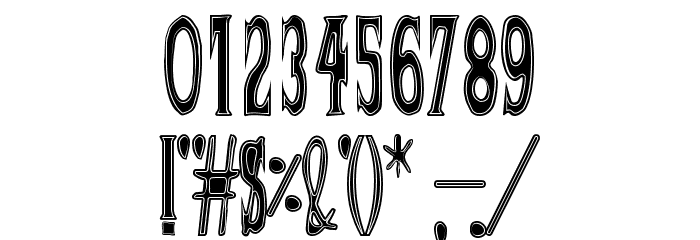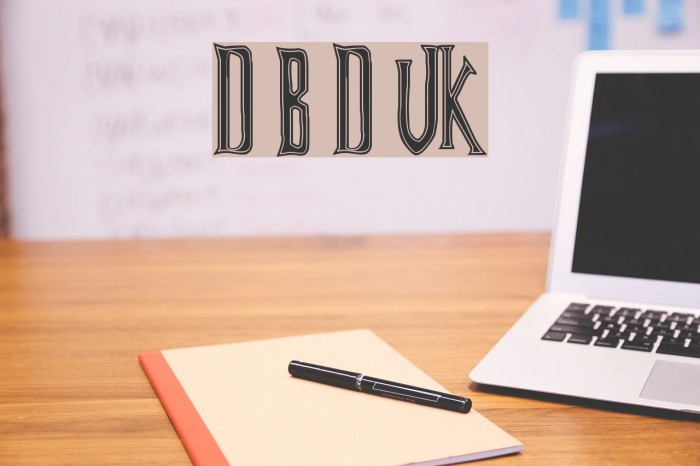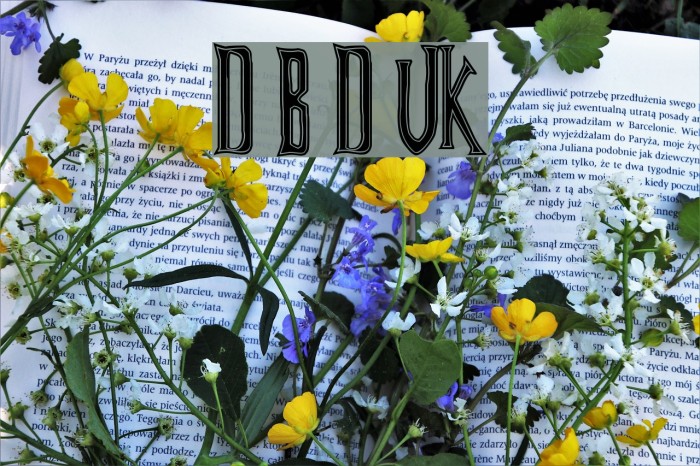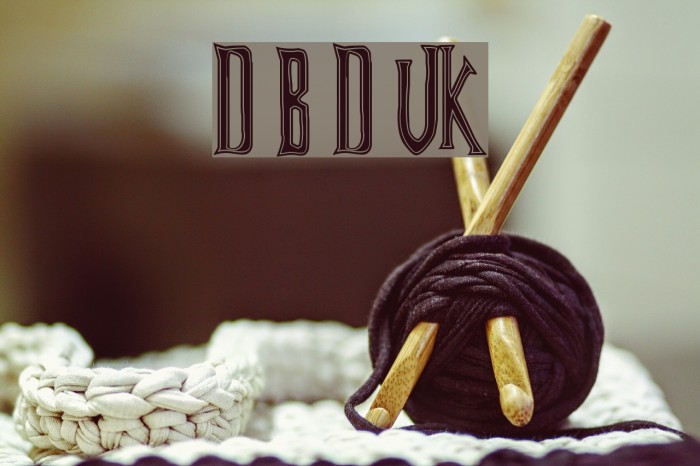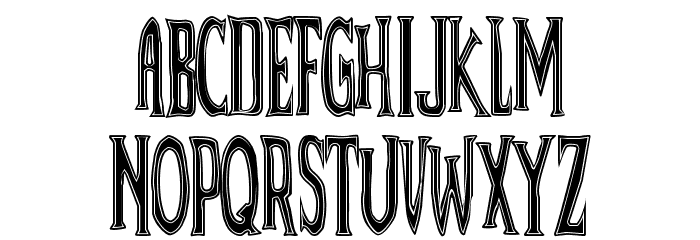
Dead By Dawn UK Font
This font features a bold and decorative style with a distinct shadow effect that gives it a three-dimensional appearance. The letters are tall and narrow, with sharp serifs that add a touch of elegance and drama. The uppercase and lowercase characters maintain a consistent design, while the numerals and special characters complement the overall aesthetic. The font's unique style makes it stand out, making it suitable for eye-catching designs. Its intricate detailing and shadowing create a sense of depth, making it ideal for projects that require a strong visual impact.
A bold, decorative font with a three-dimensional shadow effect and sharp serifs.
• Proposed Projects: Ideal for posters, logos, book covers, and any design needing a dramatic and eye-catching font.
• Category: Decorative/Display
• Bold: Yes
• Italic: No
• Weight: Bold
• Width: Condensed
• Character Spacing: Normal
• Contrast: High
• Overall Style: Decorative
• Use Case: Headlines, Logos